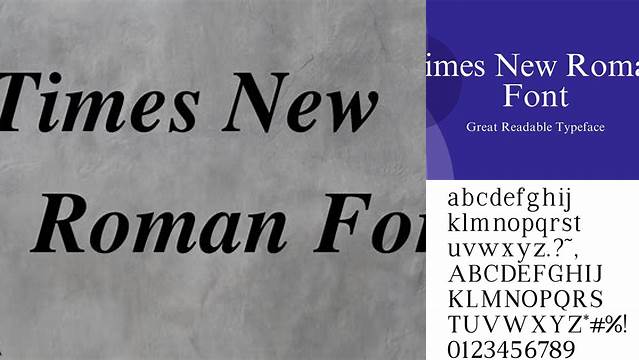
1. What is Times New Roman Font?
Times New Roman is a serif typeface commissioned by The Times newspaper in 1931 and conceived by Stanley Morison, the artistic advisor to the British branch of the printing equipment company Monotype, in collaboration with Victor Lardent, a lettering artist in The Times' advertising department. It has become one of the most popular and influential typefaces in history, widely used in book printing, general printing, and digital media. Its clear, legible design makes it ideal for large bodies of text, and its traditional appearance lends a sense of formality and authority. If you're aiming for a classic, professional look, then Times New Roman is definitely a font to consider. Its enduring popularity speaks volumes about its versatility and timeless appeal.
2. History of Times New Roman Font
The history of Times New Roman is super interesting! Back in the early 1930s, The Times newspaper in London wasn't too happy with their current font. They wanted something more legible and space-efficient. So, they hired Stanley Morison, a big name in typography, to come up with a solution. Morison teamed up with Victor Lardent, and together they created Times New Roman. The font was first used in the newspaper in 1932 and quickly became a hit. What makes Times New Roman so special? Well, it's all about the balance between readability and elegance. The serifs (those little feet at the end of the strokes) help guide the eye across the page, making it easier to read long blocks of text. Plus, it was designed to be economical in terms of space, which was a big deal for newspapers trying to cram a lot of information onto a page. Over the years, Times New Roman has become a standard font on computers and in print, used everywhere from books and newspapers to academic papers and websites. Its classic, formal appearance makes it a go-to choice when you want to convey authority and professionalism.
3. Why Use Times New Roman Font?
There are tons of reasons why you might want to use Times New Roman. First off, it's incredibly readable. The serifs make it easy on the eyes, which is crucial for documents with lots of text. Think about academic papers, reports, or even novels – Times New Roman is a solid choice. It also has a very professional vibe. If you're putting together a resume, cover letter, or any kind of formal document, Times New Roman can help you make a good impression. It's seen as a classic and reliable font, so it conveys a sense of authority and trustworthiness. Another big plus is its ubiquity. Times New Roman is installed on pretty much every computer, so you don't have to worry about compatibility issues when sharing documents. Everyone will be able to see your text as intended. Plus, because it's so widely used, it's familiar to most readers. This can make your content feel more approachable and less distracting. Of course, there are other great fonts out there, but Times New Roman remains a top pick for its readability, professionalism, and widespread availability.